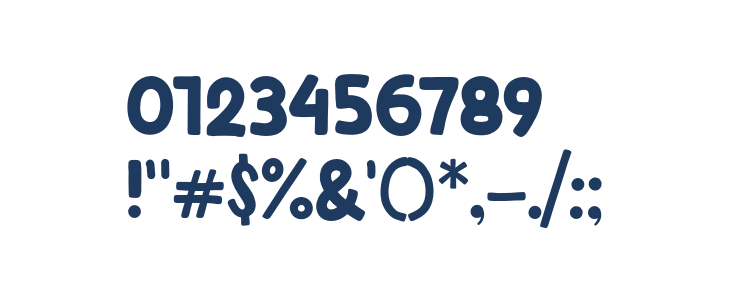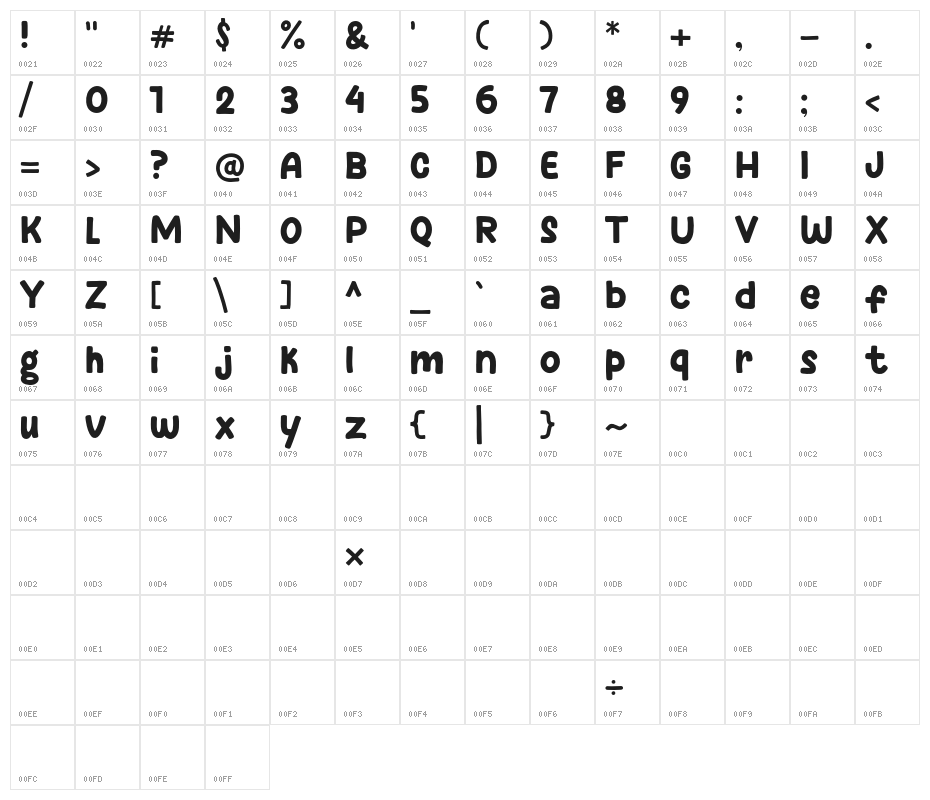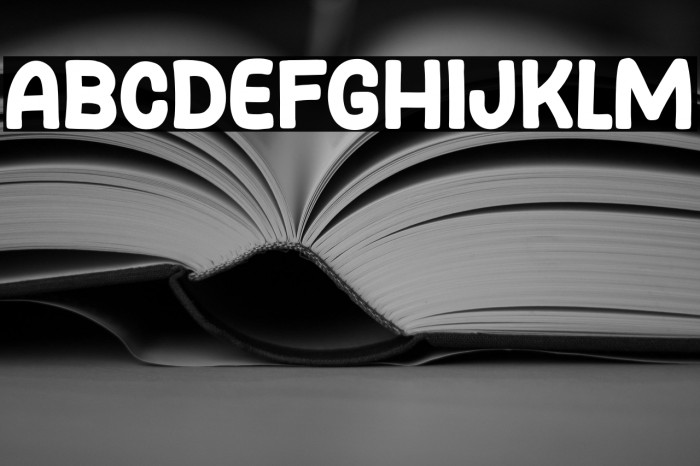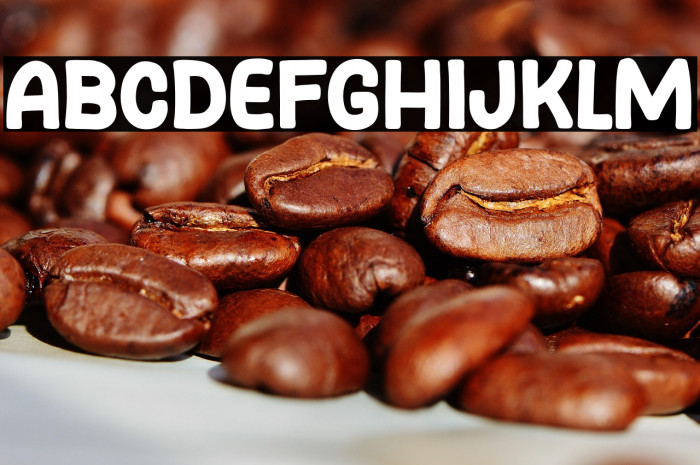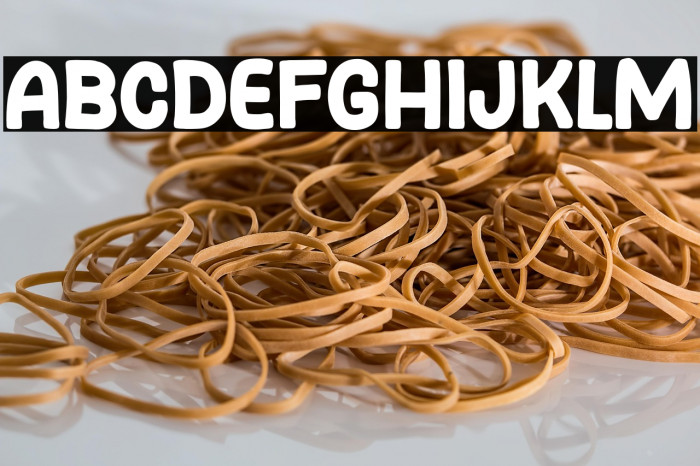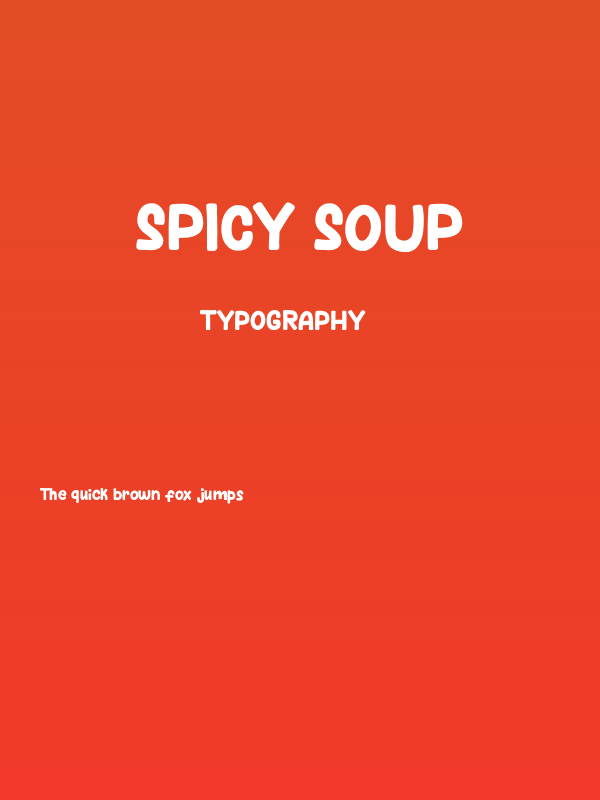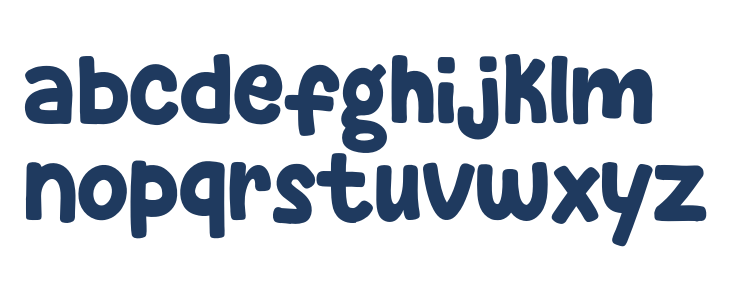
Spicy Soup Font
Spicy Soup Description
This playful and bold font features rounded, thick strokes that give it a friendly and approachable appearance. The characters are slightly irregular, adding a whimsical touch to the overall design. The uppercase and lowercase letters maintain a consistent style, with the lowercase being slightly more compact. Numbers and special characters follow the same playful aesthetic, making the font versatile for various uses. Its boldness ensures high readability, while the rounded edges soften the overall look, making it suitable for casual and fun projects.
| Proposed Projects | Ideal for children's books, playful branding, casual invitations, and fun posters. |